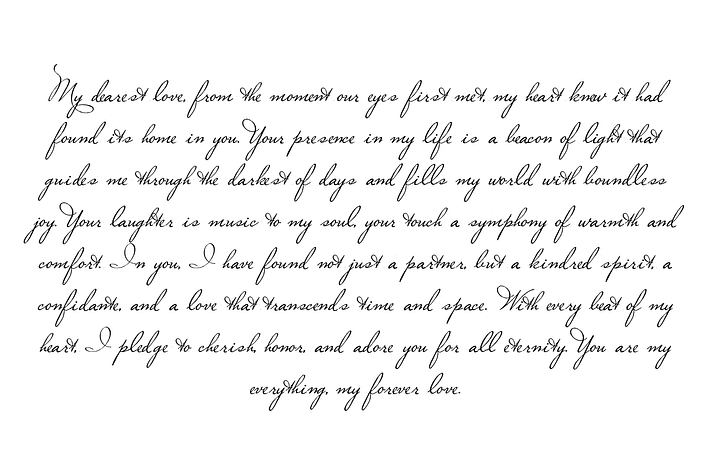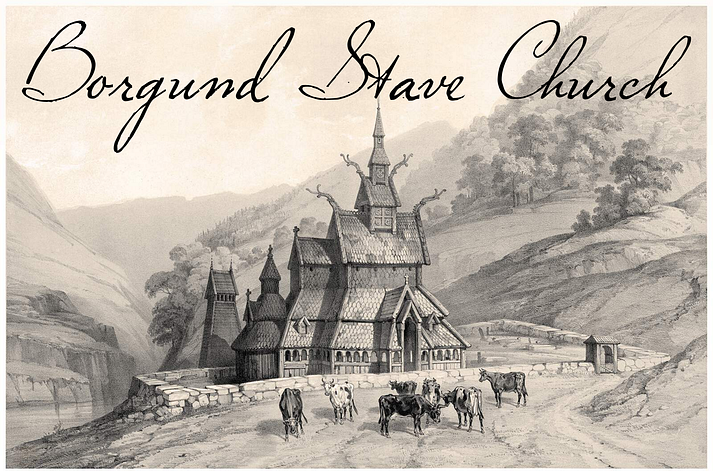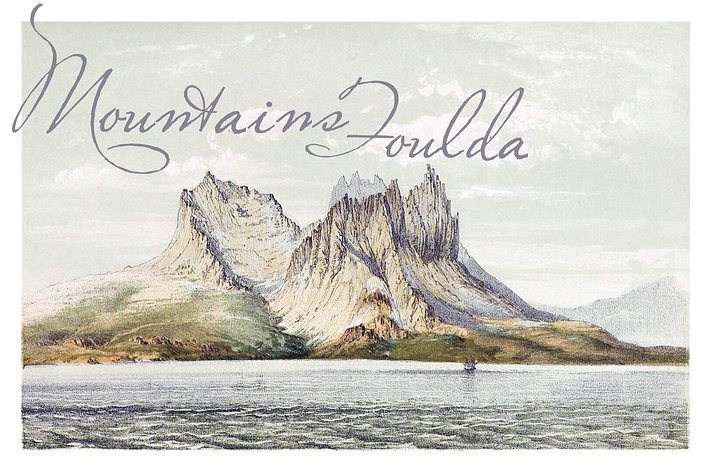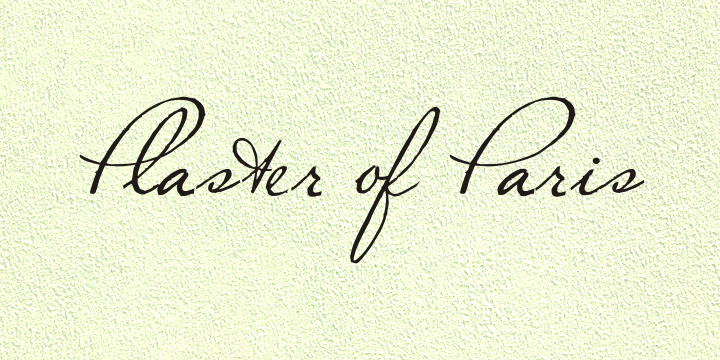
Plaster of Paris
Designed by Paulo W, Plaster of Paris is a historical font family published by Intellecta Design.
Plaster of Paris is a casual, handwrittten font with tons of movement and style. This script looks anchored in yesteryear, and can add a thematic feel to your works.